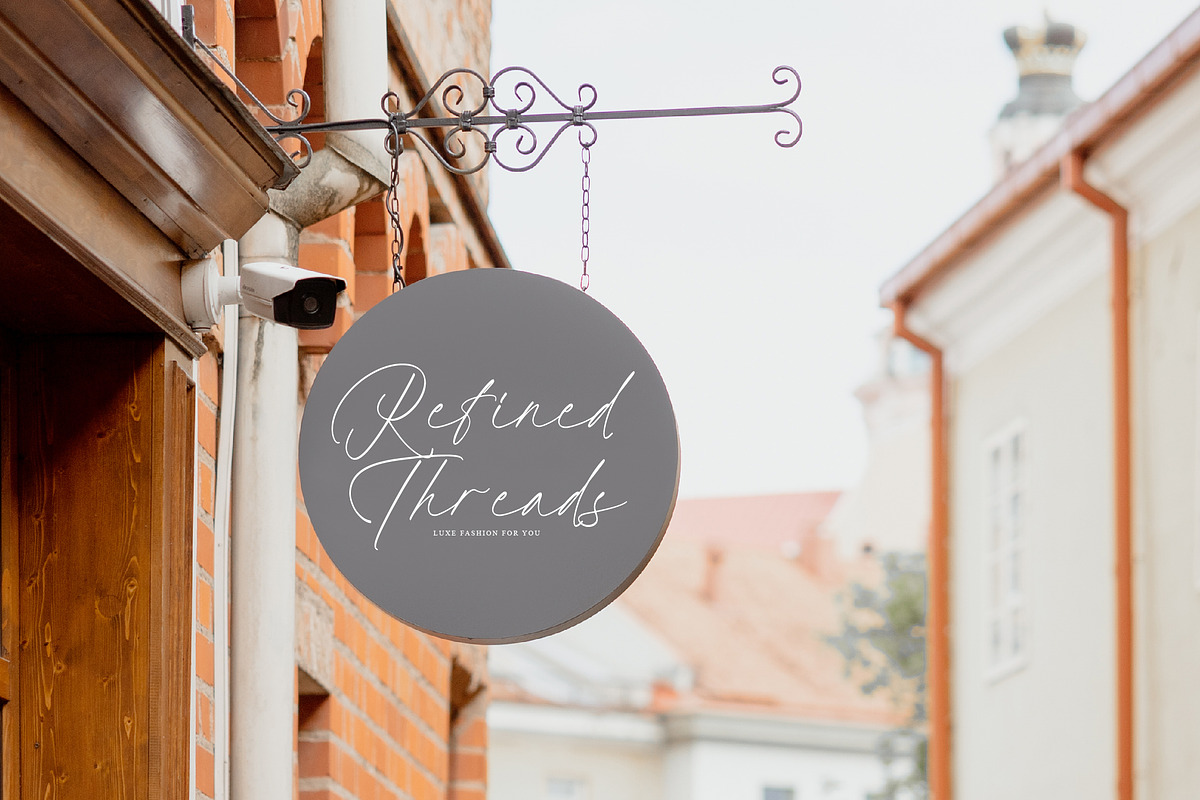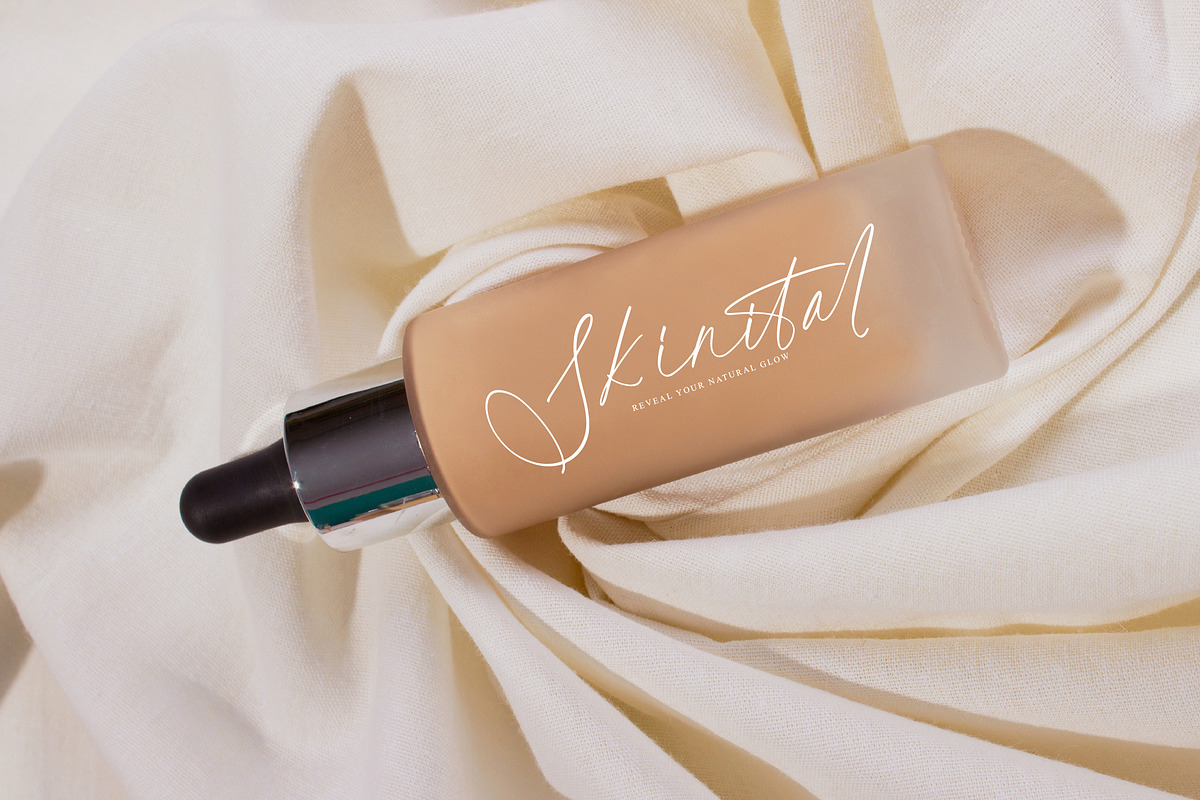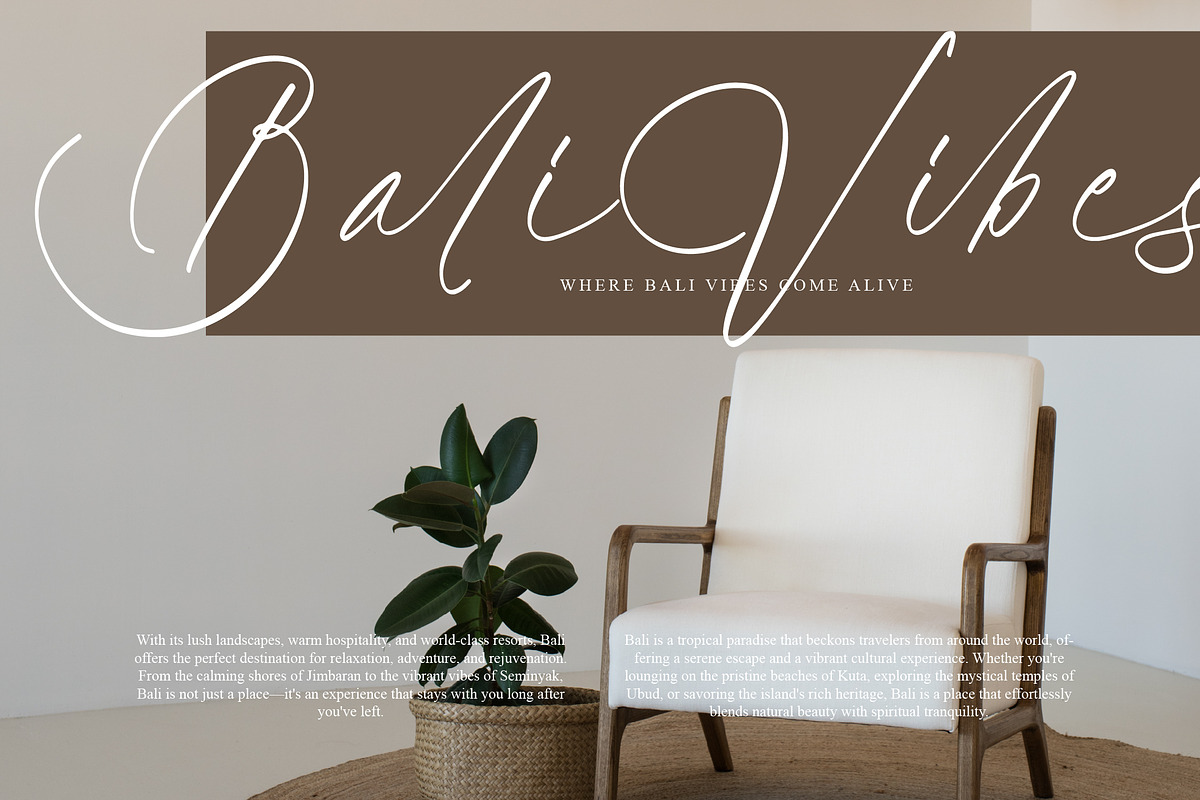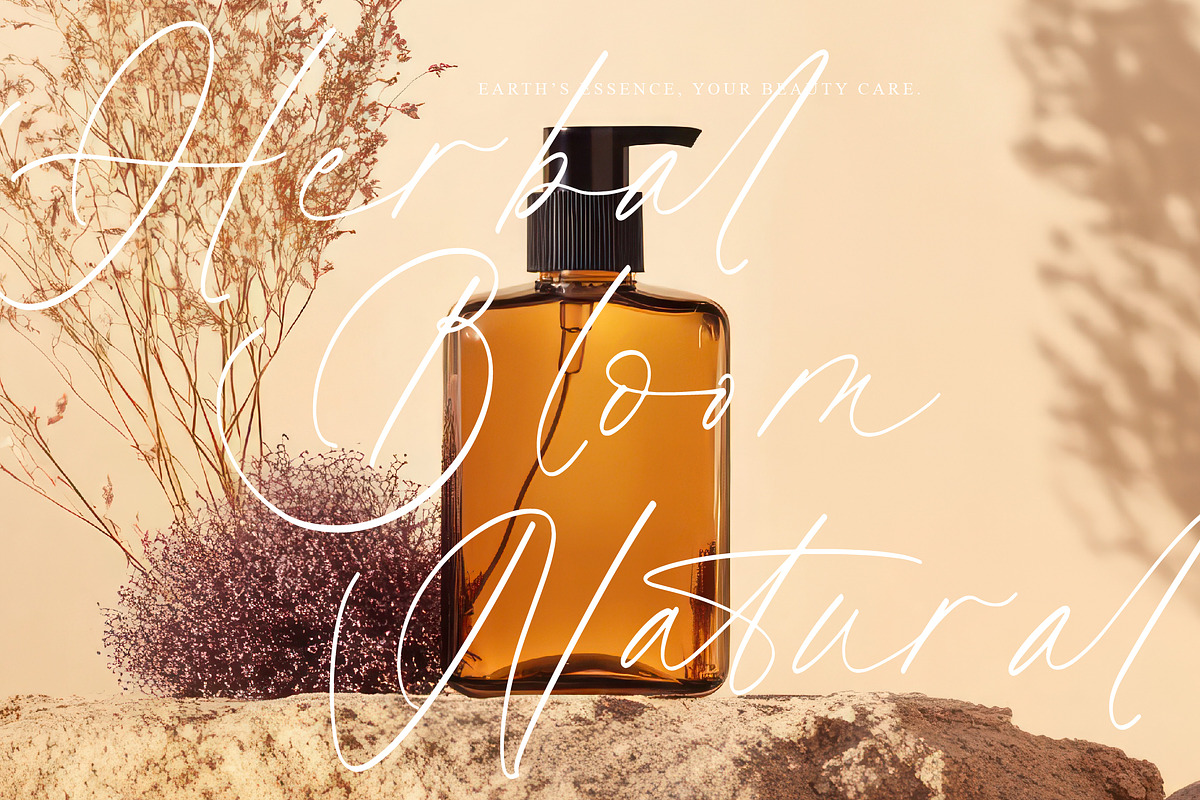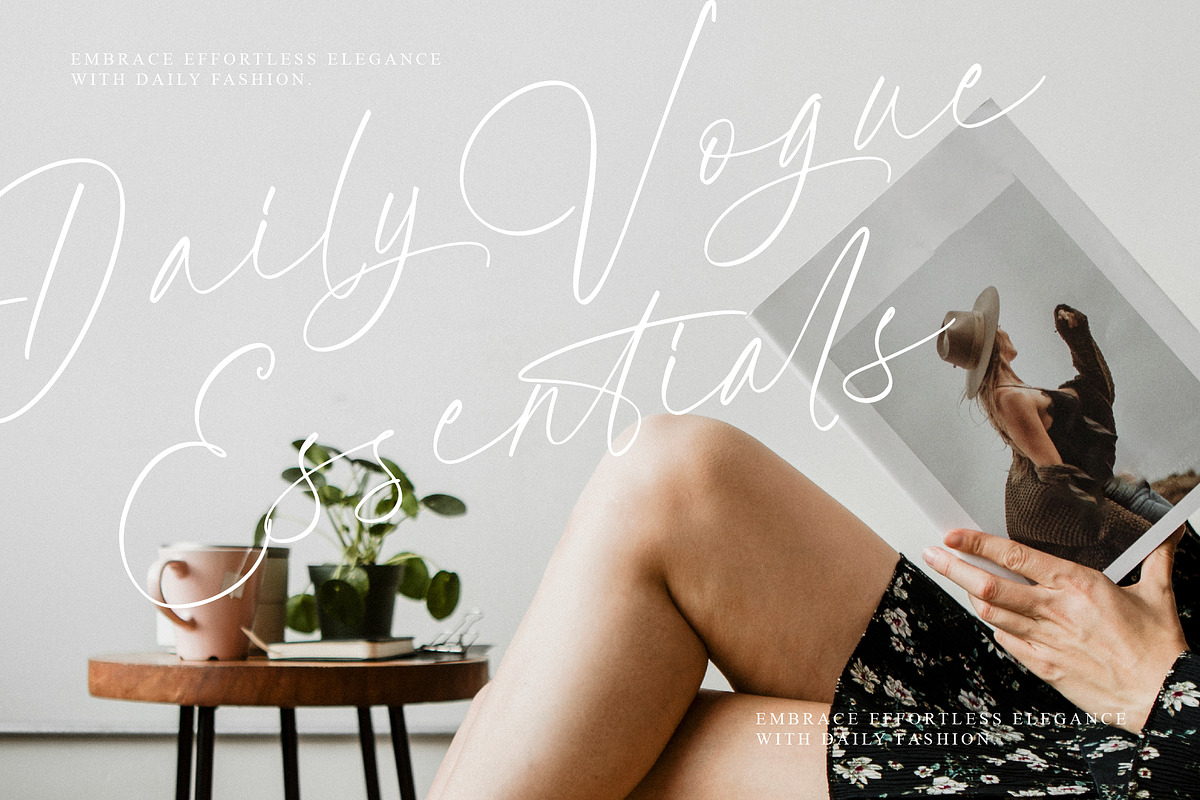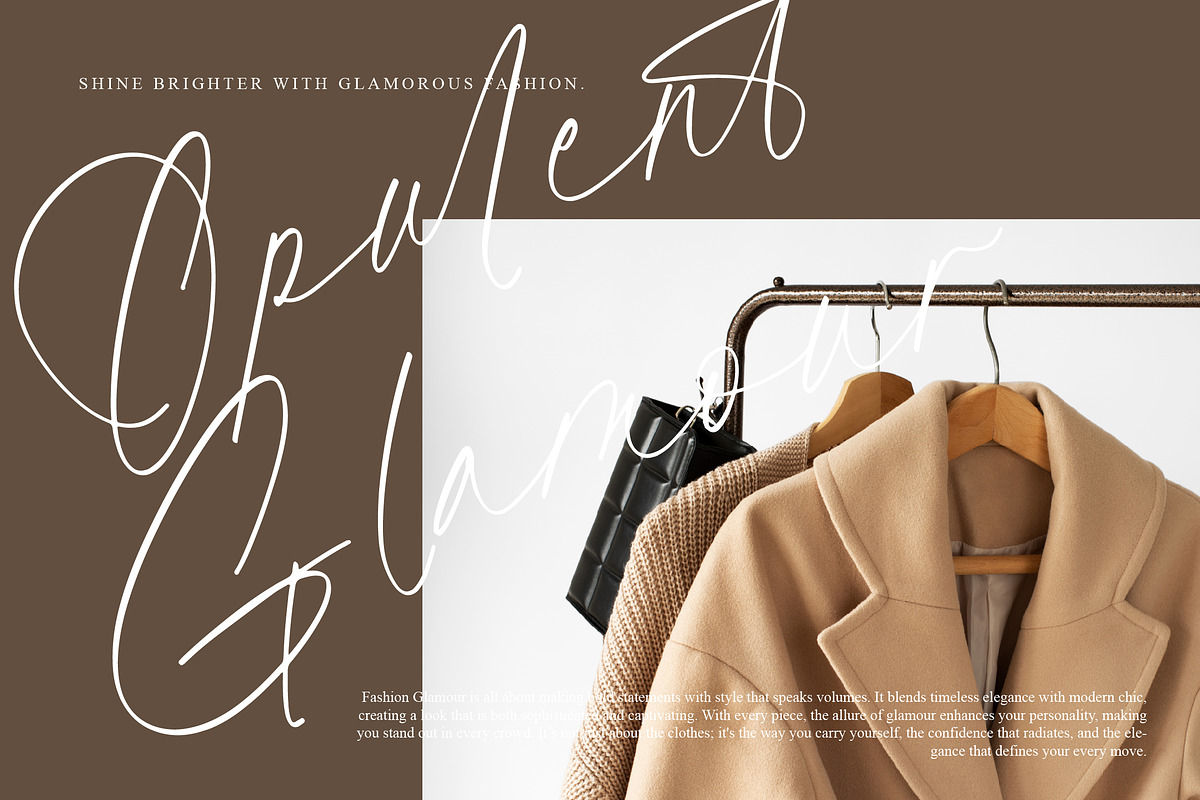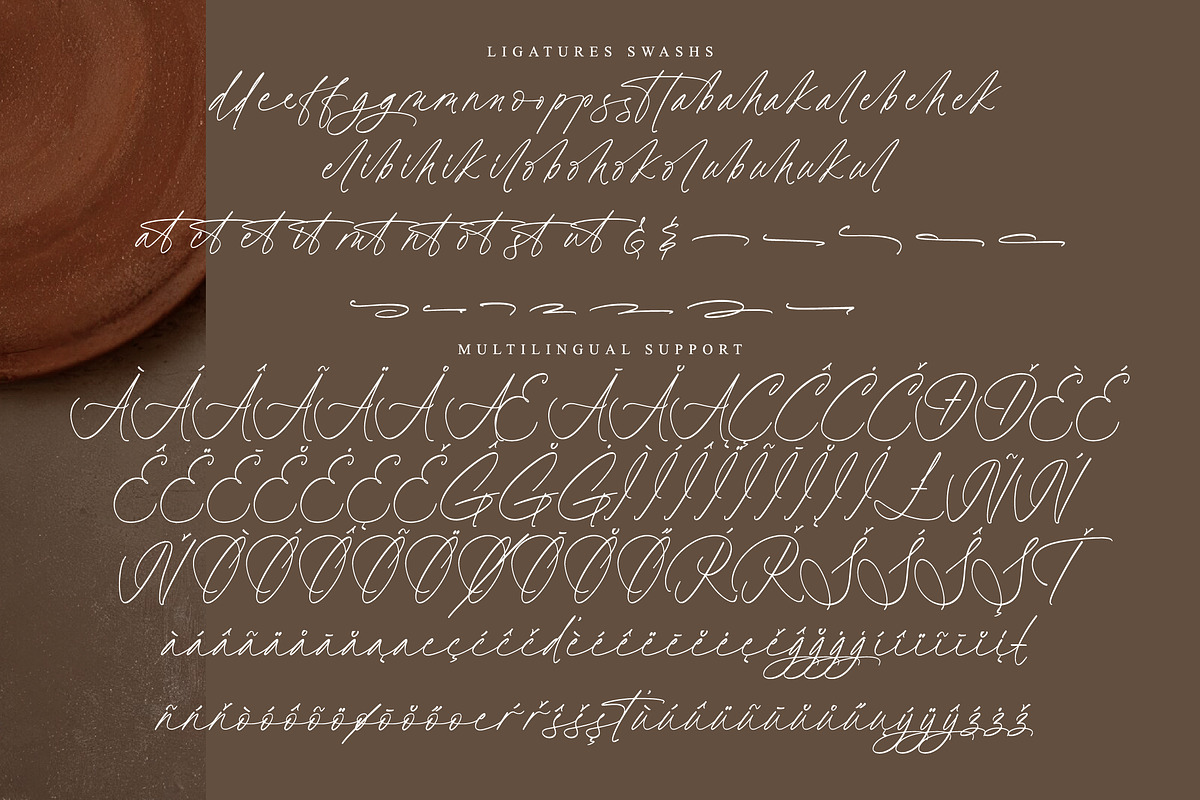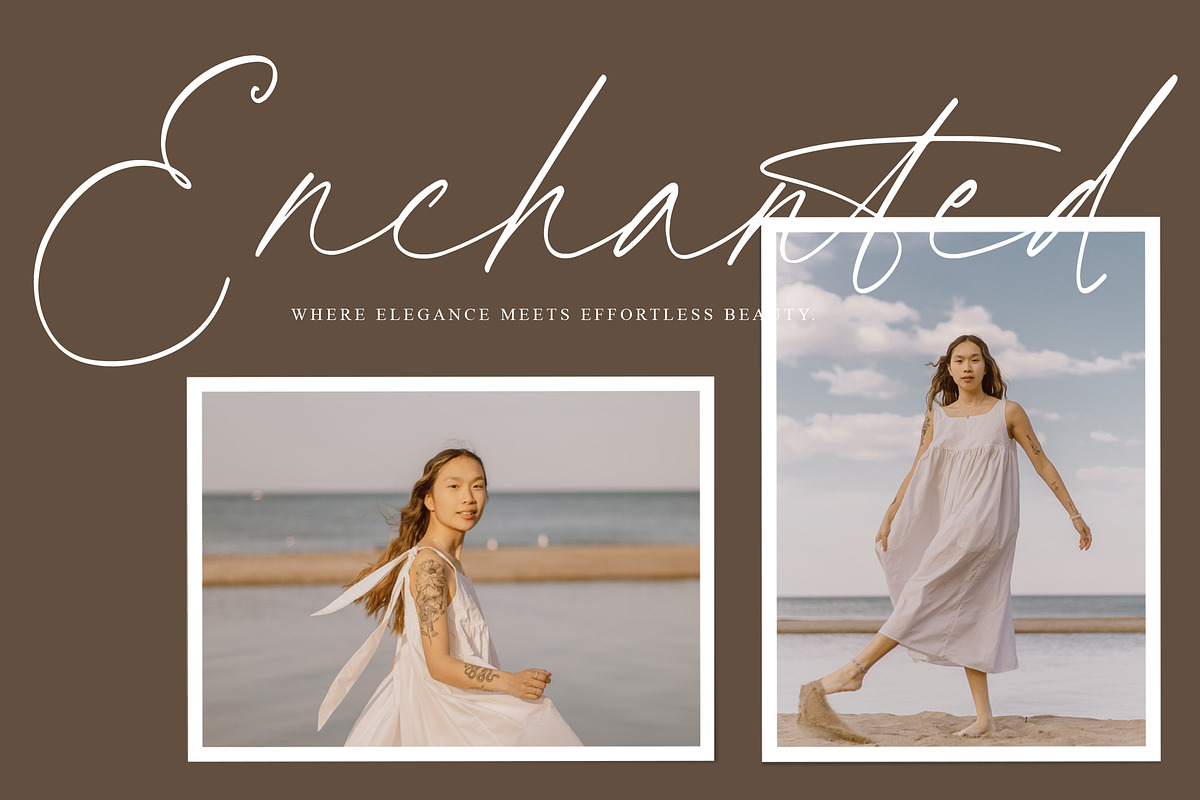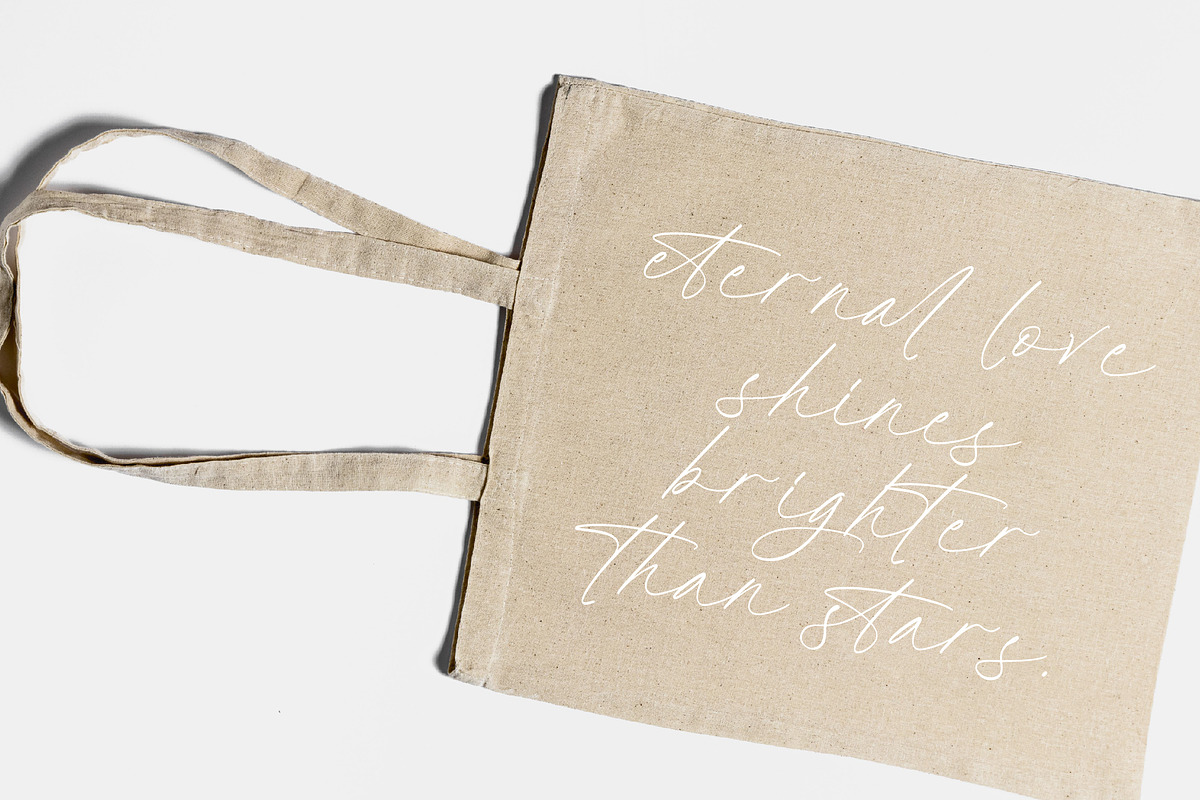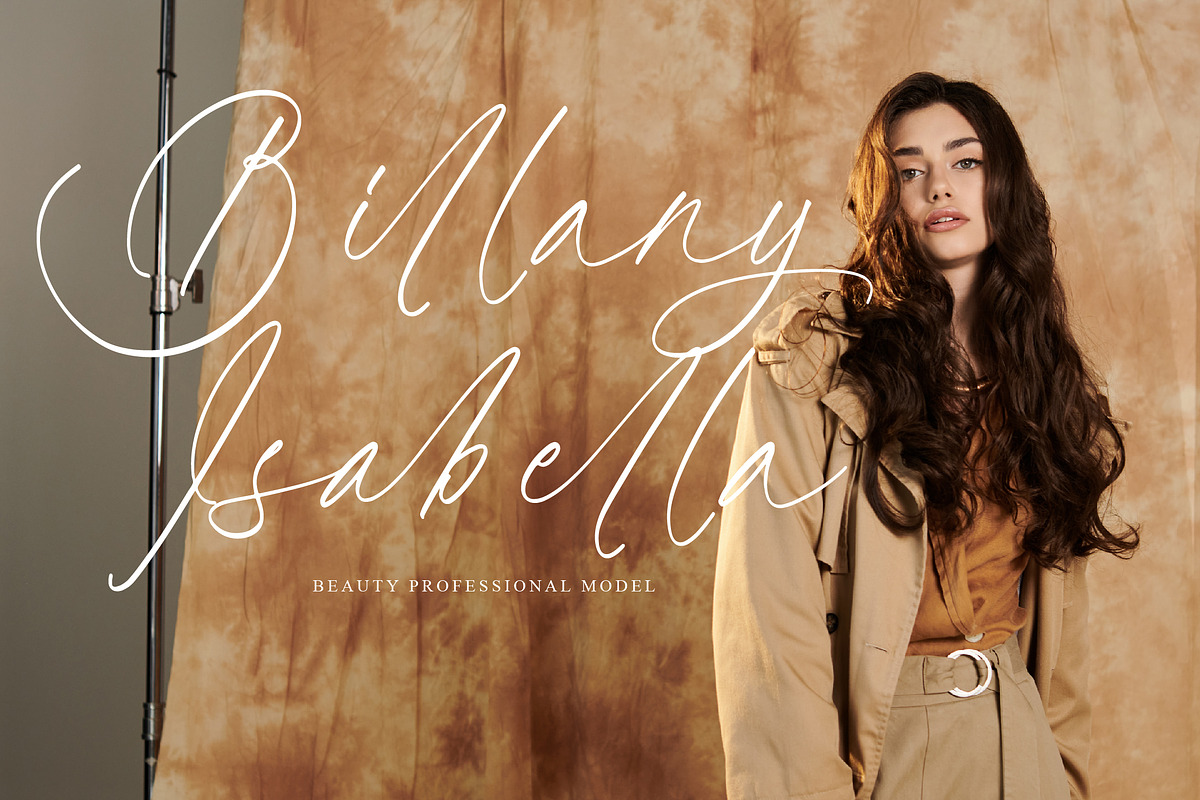
Balltesa Royales
Balltesa Royales - A Beauty Handwritten Script, from Operatype, perfect for any project like: logos, branding projects, homewares designs, product packaging, mugs, quotes, posters, shopping bags, t-shirts, covers books, business cards, invitation cards, greeting cards, labels, photography, watermarks, special events and all your other luxury projects that require a premium taste.
Ligatures, Alternate & Swashes